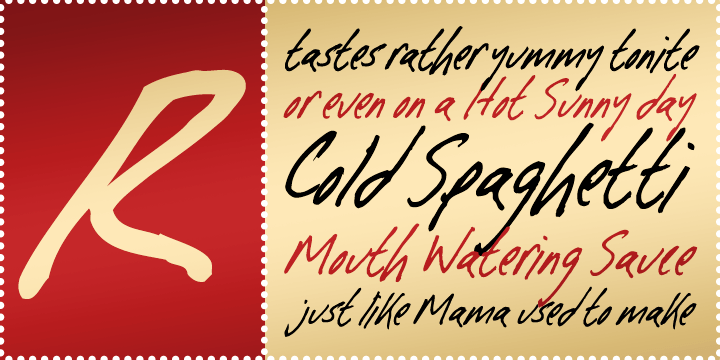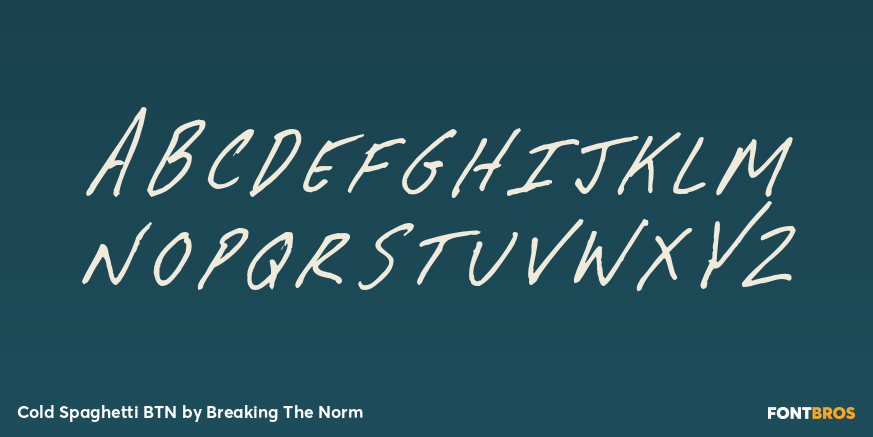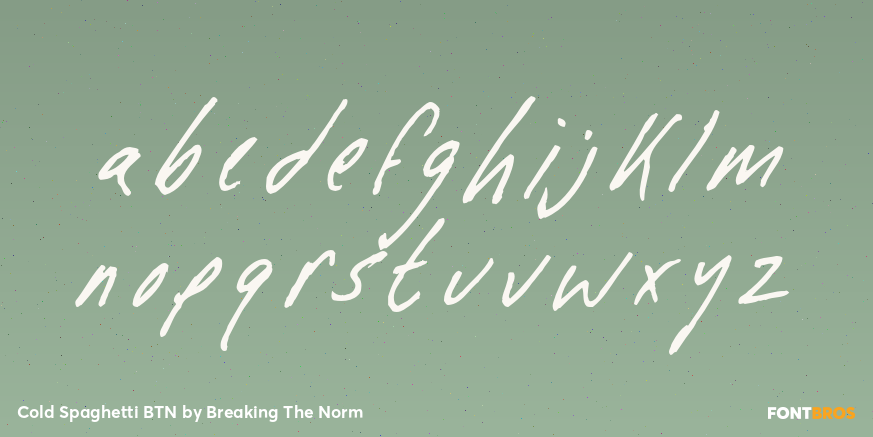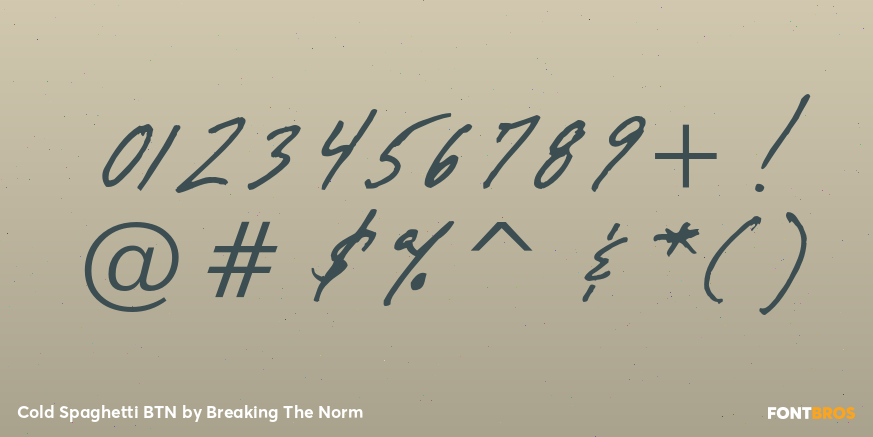
Cold Spaghetti BTN
Font Family by Breaking The Norm
Cold Spaghetti BTN is a tall, scratchy handwritten display font with a wild, rushed energy and a deliberately awkward personality. Inspired by a rough "chicken scratch" style, its skinny, uneven letterforms feel impulsive, restless, and full of offbeat charm. Cold Spaghetti BTN is well suited for children's projects, playful packaging, quirky branding, casual posters, school-themed graphics, handmade crafts, and designs that need an unpolished human touch. Its raw handwritten character gives it a lively, mischievous voice that stands apart from cleaner or more polished casual fonts.